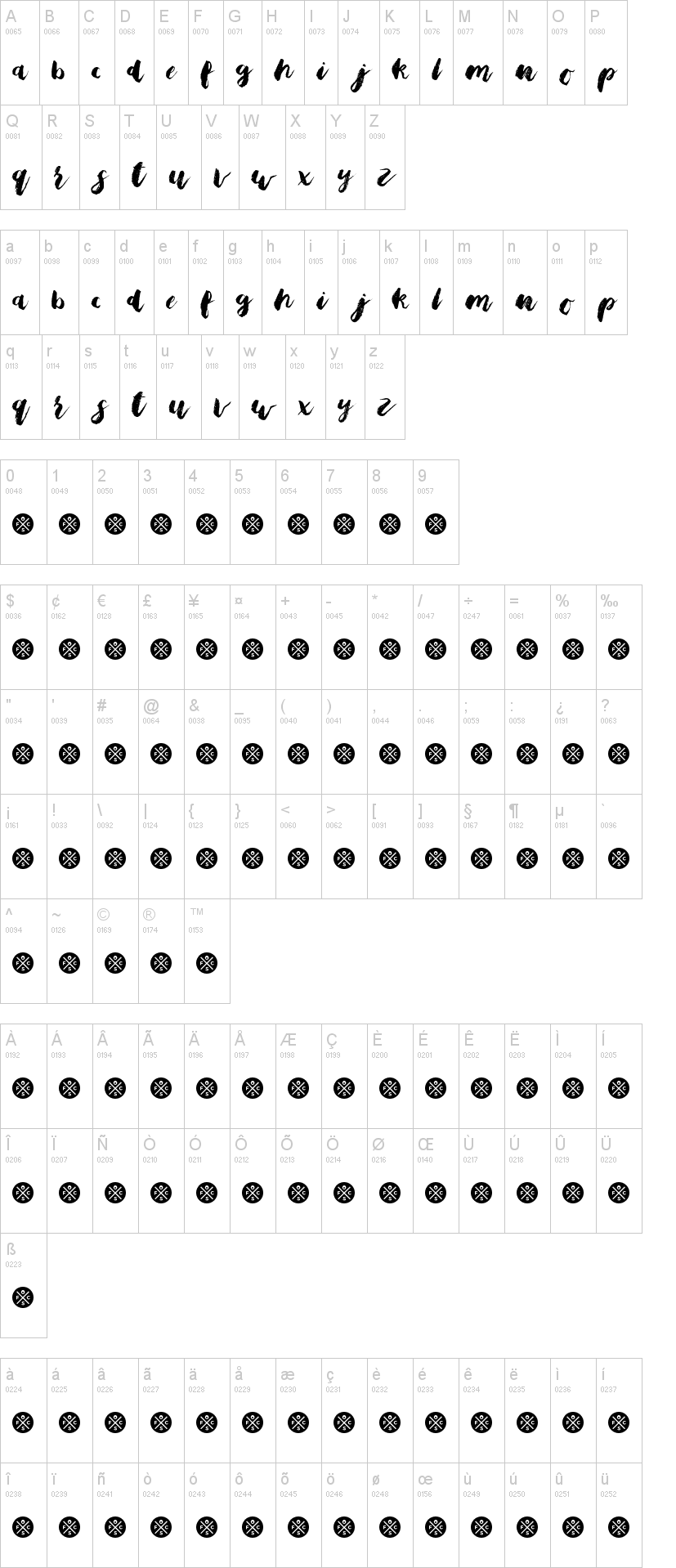
Bristle Brush Script Regular and Bristle Brush Script Black are calligraphy scripts for modern calligraphy projects.
We've captured the essence of writing with a big thick inky brush that's just about to run out of ink. Wide down strokes and thin broken upstrokes, that perfect balance. Bristle Brush Script Black thickens each stroke, eliminating much of the dry-brush look.
It's the perfect font for your next creative project, adding a stylish flair to art prints, mugs, pillowcases, and clothing. Alternate characters are provided on the f, n, q, s, u, and y.